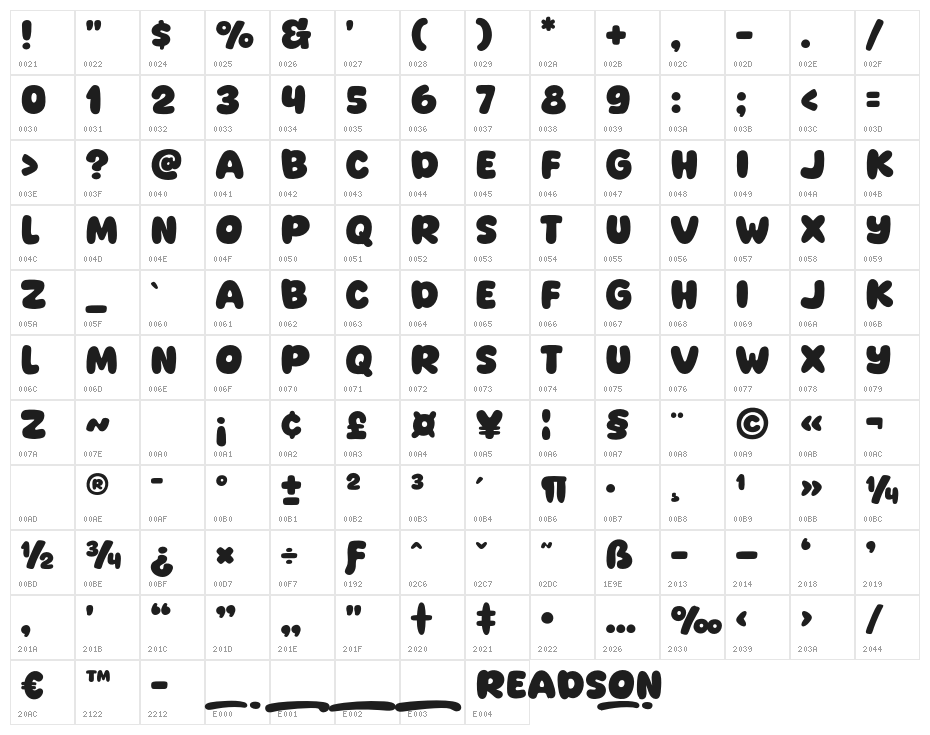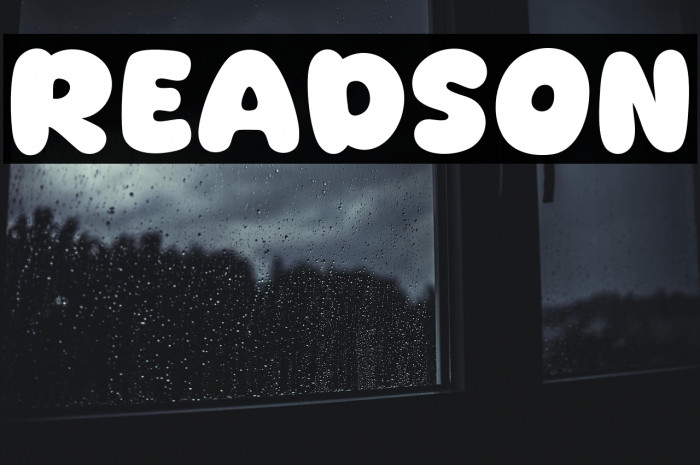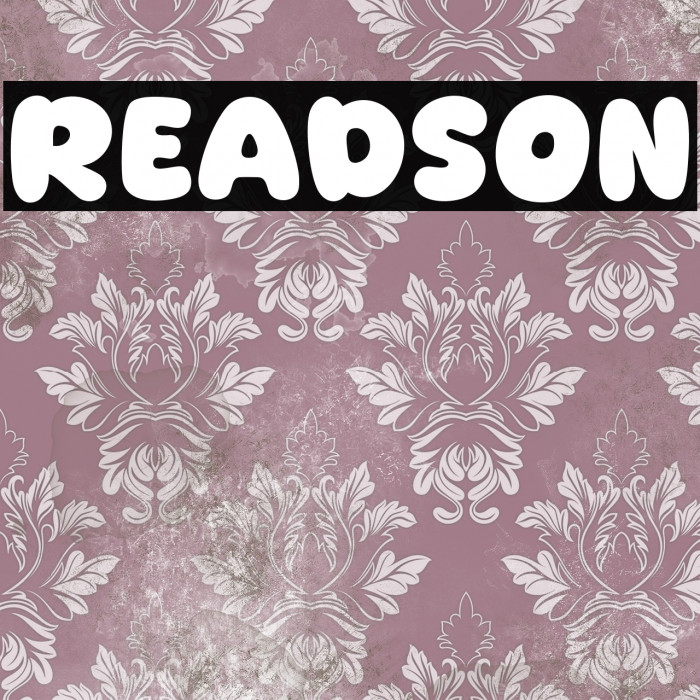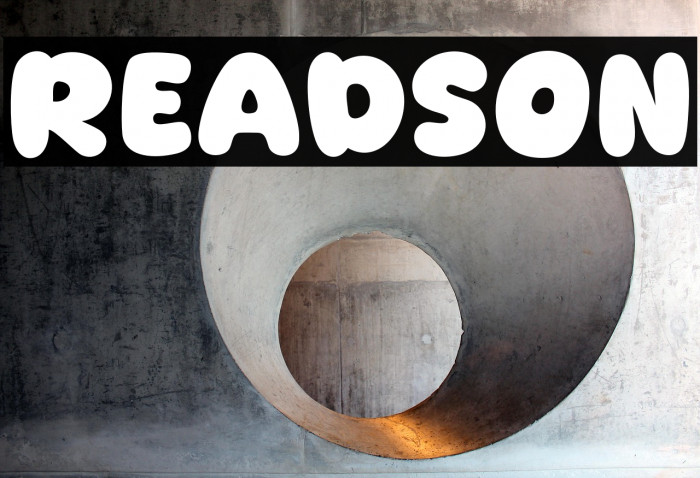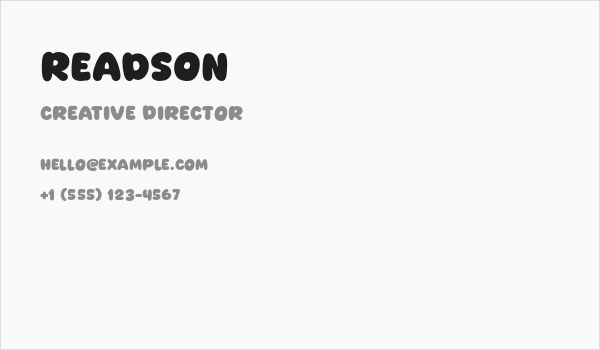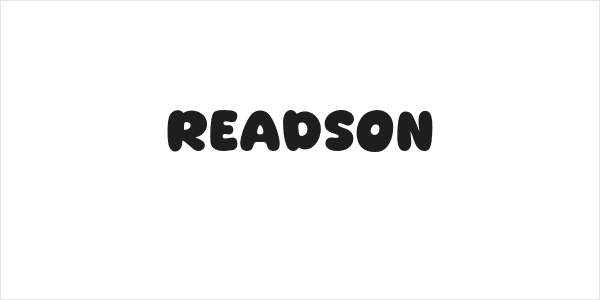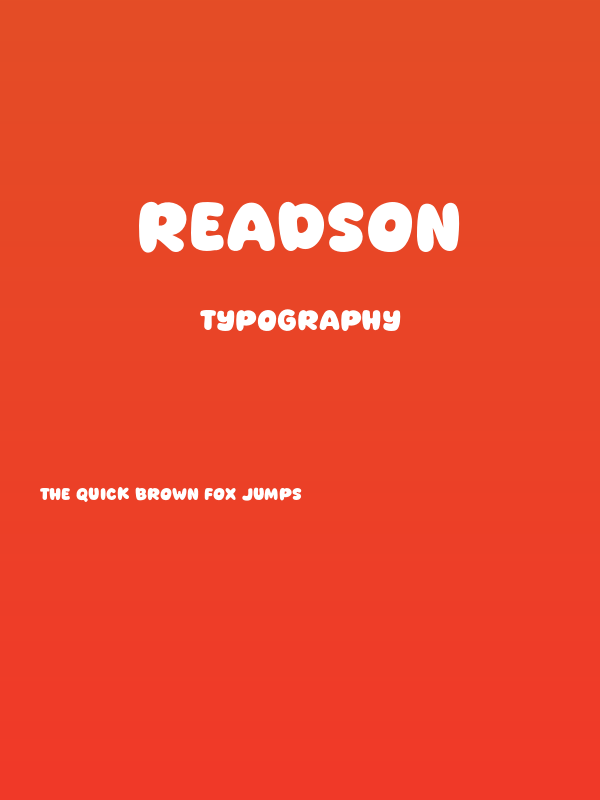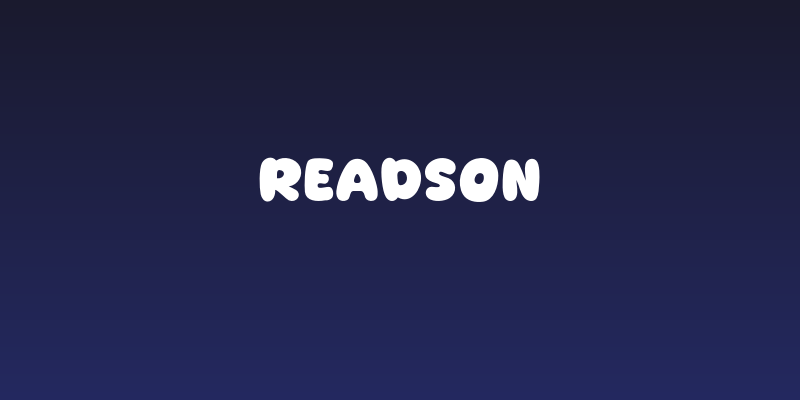
Readson Font
Readson Description
This font features a playful and bold design with rounded, bubbly characters that convey a sense of fun and approachability. The letters are thick and have a uniform stroke width, giving them a strong presence on the page. The overall appearance is reminiscent of cartoon or comic styles, making it ideal for projects that require a lighthearted and informal tone. The characters are well-spaced, ensuring readability despite their boldness. The font includes a full set of uppercase and lowercase letters, numbers, and a variety of special characters, making it versatile for different uses.
| Overall Style | Playful, Cartoonish |
| Proposed Projects | Perfect for children's books, comic strips, playful branding, and party invitations. |